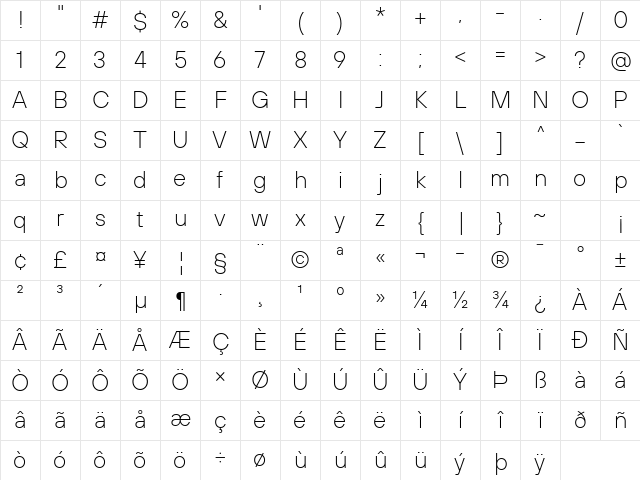
TT Hoves Pro Trial ExtraLight Free Font
TT Hoves Pro Trial ExtraLight
Style: ExtraLight
Designer: Designed by Ivan Gladkikh, Pavel Emelyanov, Yulia Gonina, Marina Khodak, Radik Tukhvatullin, Nadyr Rakhimov. Technical designers Nadezhda Polomoshnova, Kseniya Karataeva, Olexa Volochay, Yuriy Nako, Tasya Petelina, Anastasia Pogorelova, Victor Rubenko.
Design Context for TT Hoves Pro Trial
TT Hoves Pro Trial is a composed and adaptable typeface that performs quietly and consistently across a wide range of design contexts. Its slender proportions lend an understated elegance to any composition.